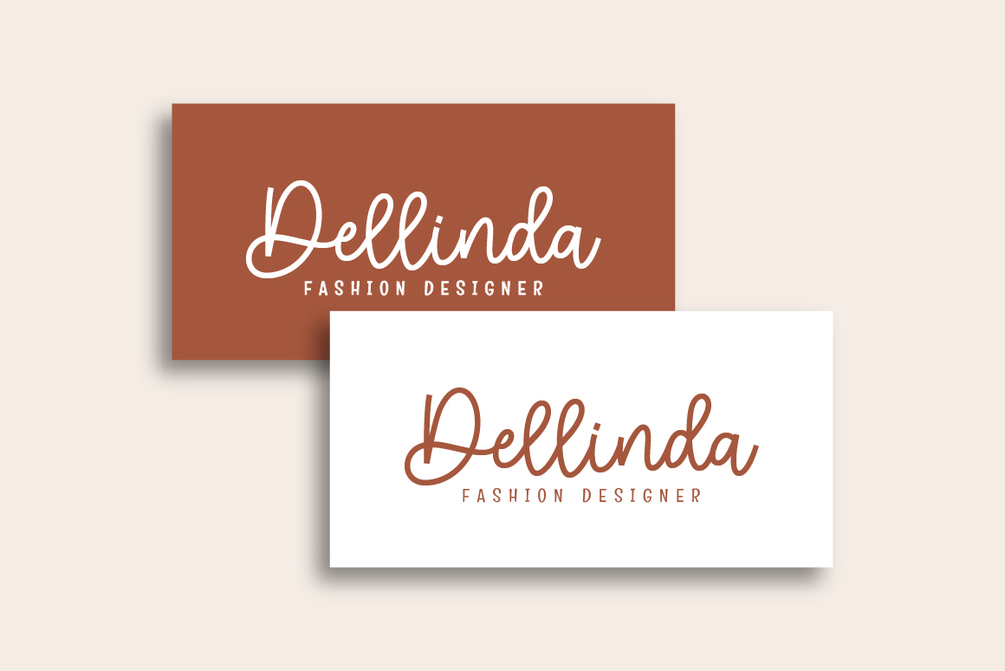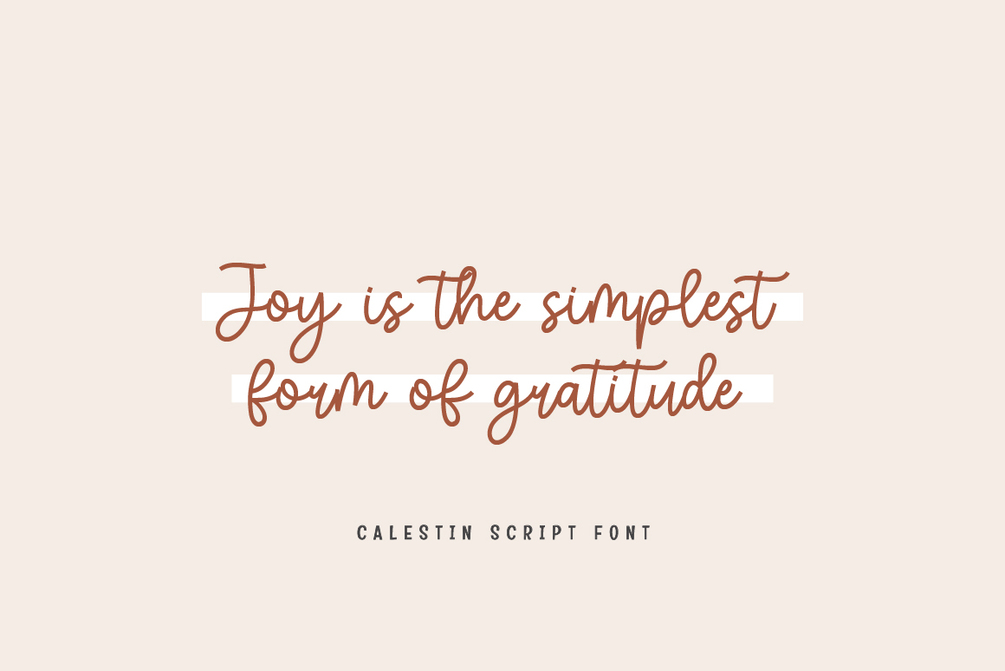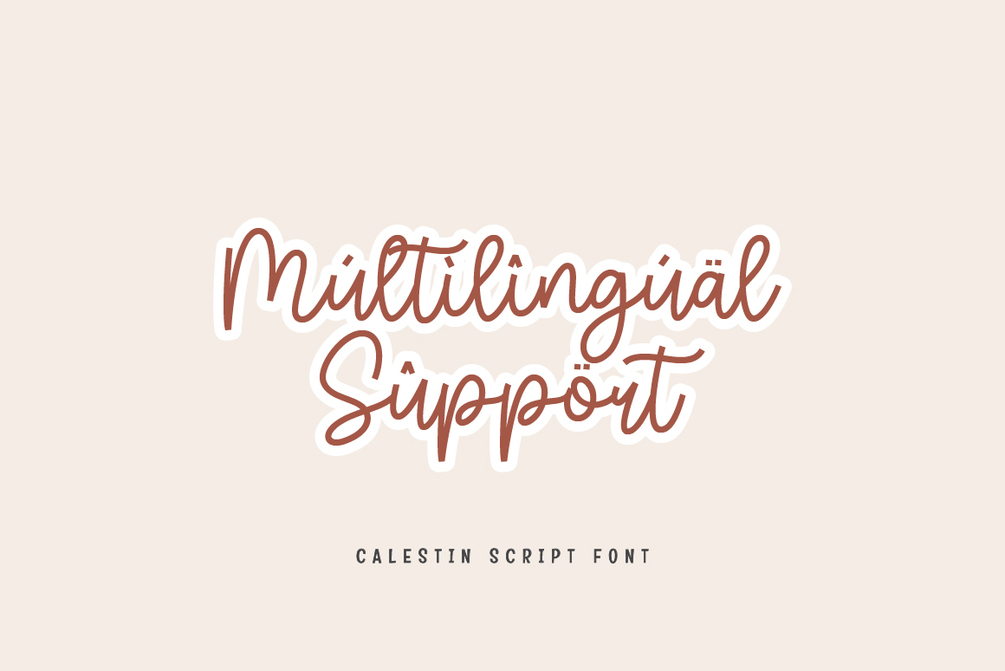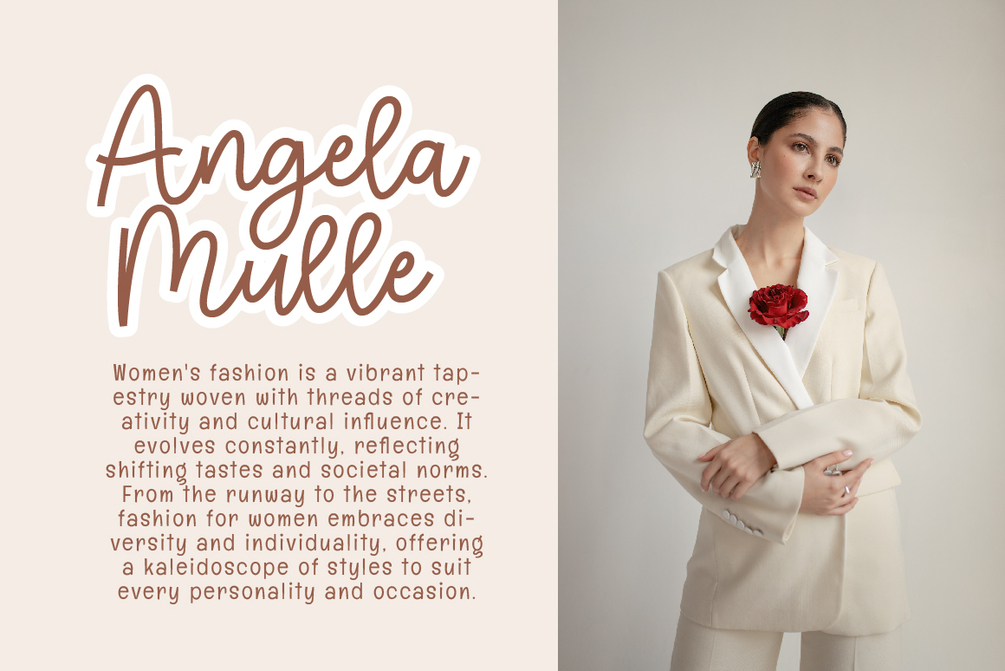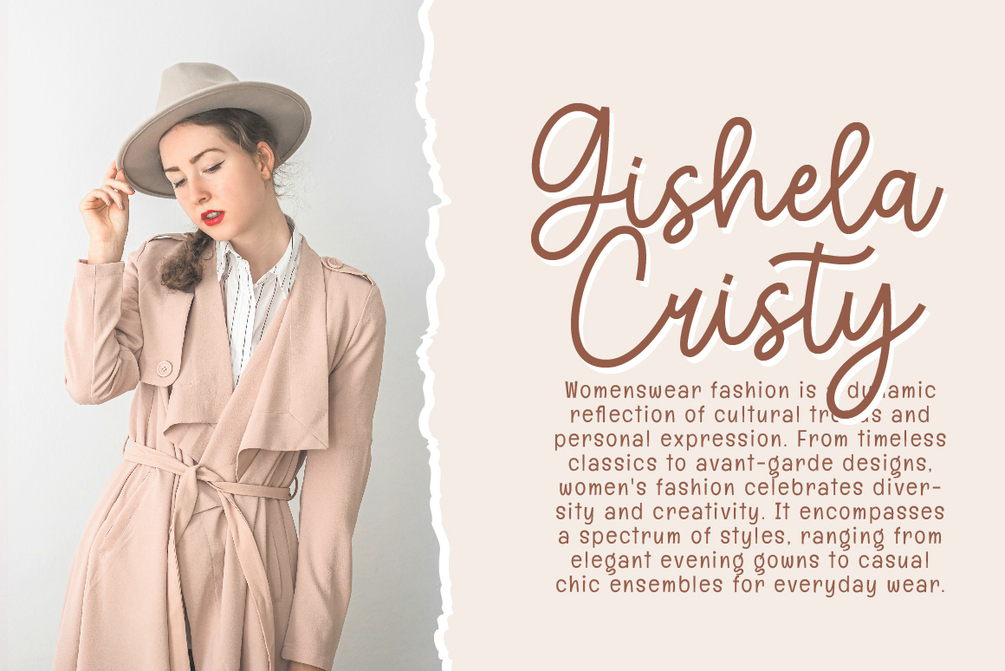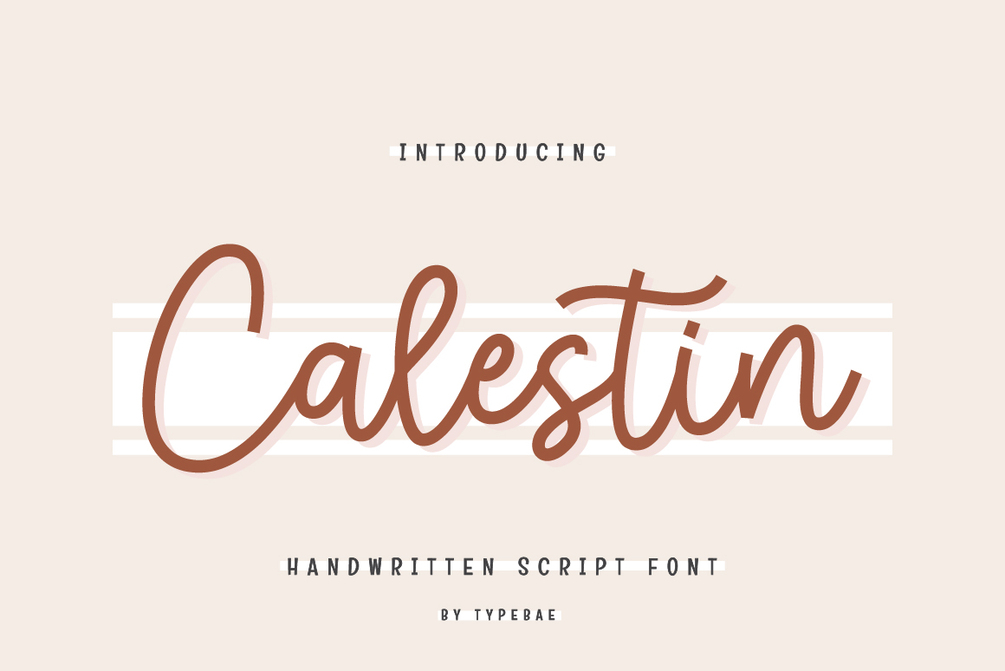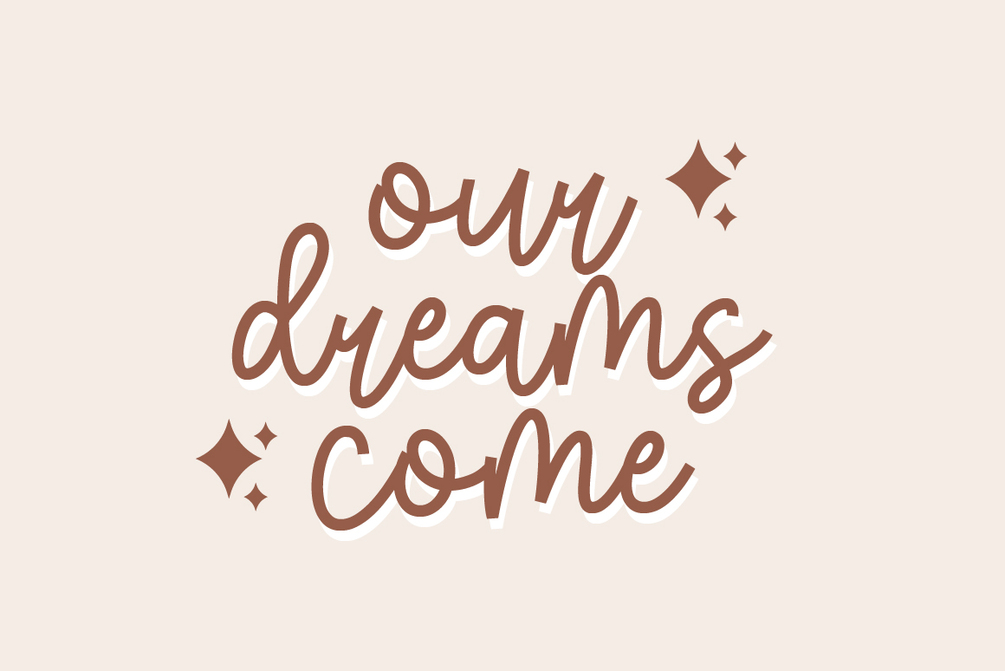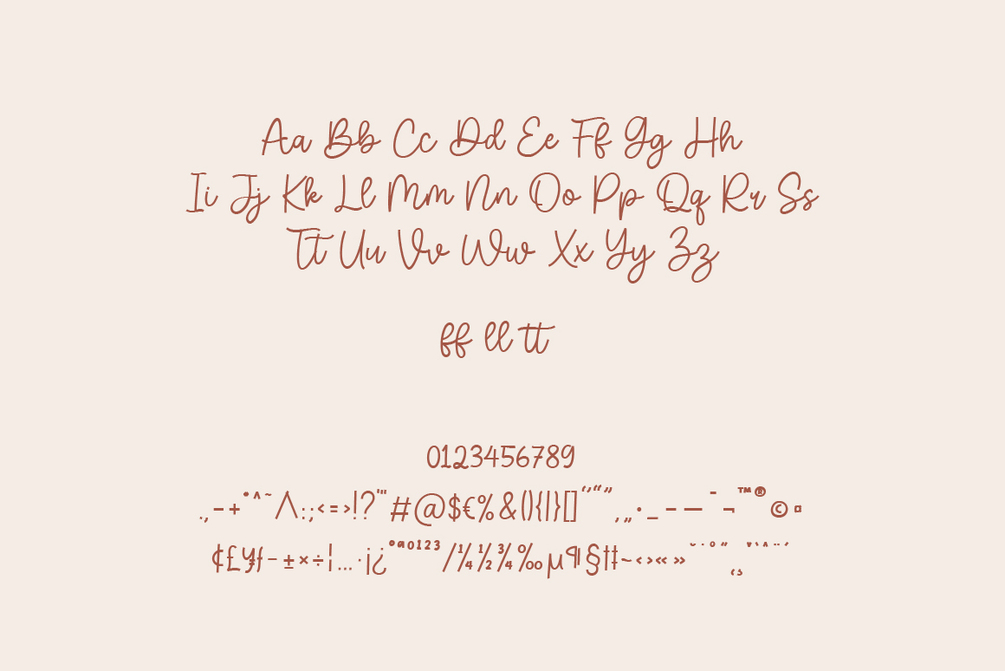
Calestin
Calestin is a beautiful and sweet handwritten script font that exudes elegance and charm. Its flowing strokes and gentle curves lend a graceful and sophisticated touch to any design project. Ideal for invitations, branding, and creative displays, Calestin captures attention with its timeless appeal and legibility.
• Uppercase, Lowercase, Ligatures
• Multilingual